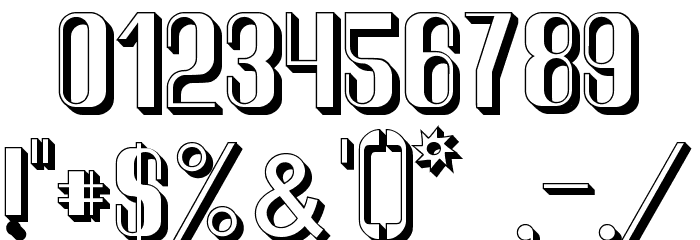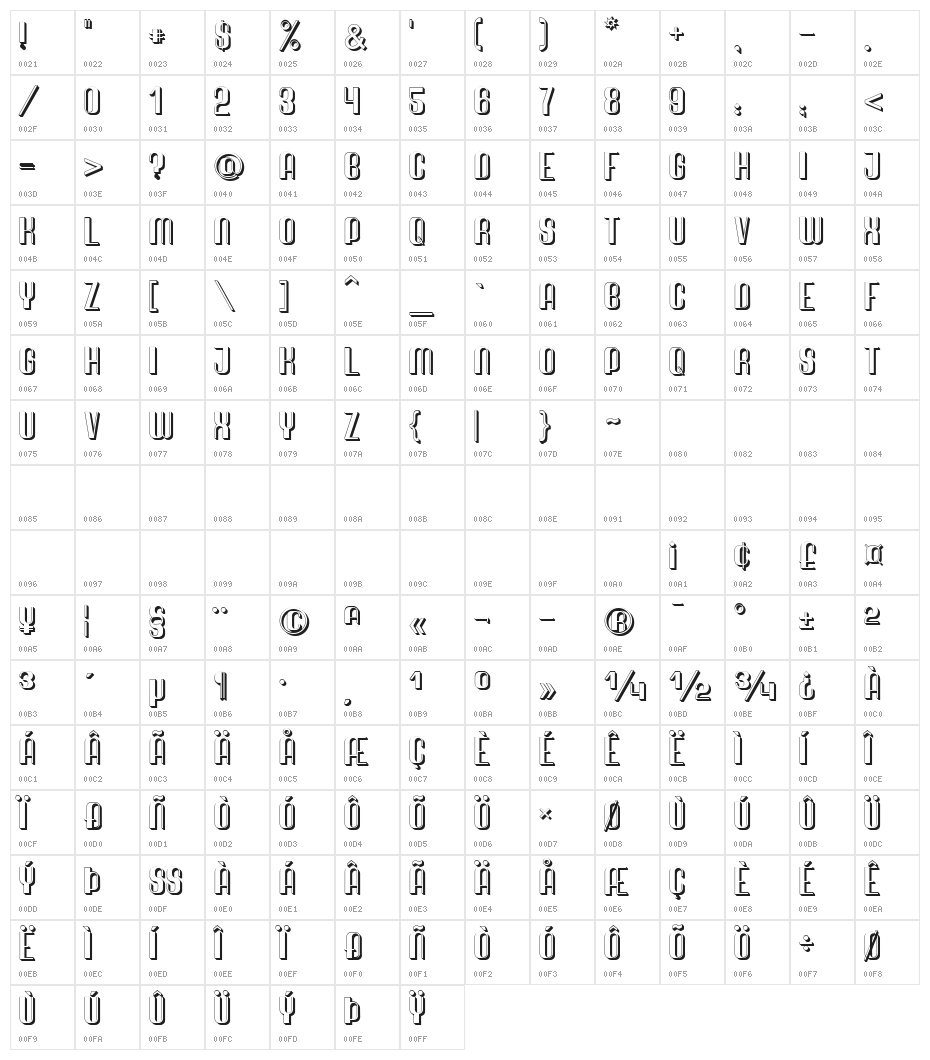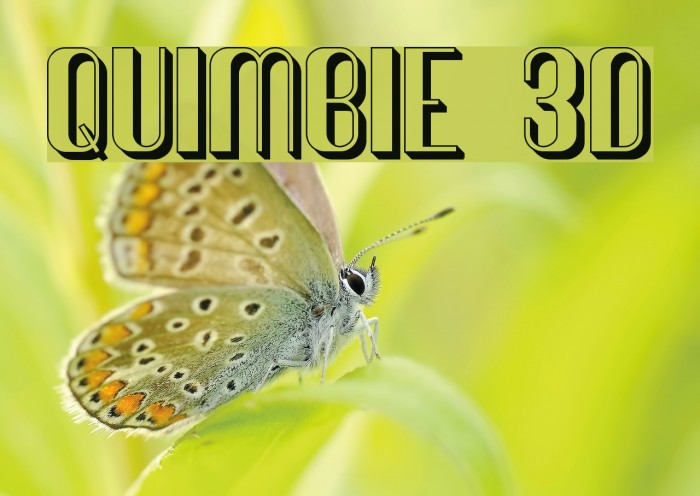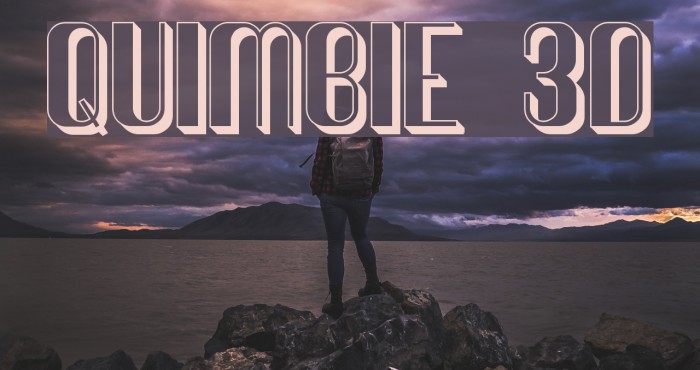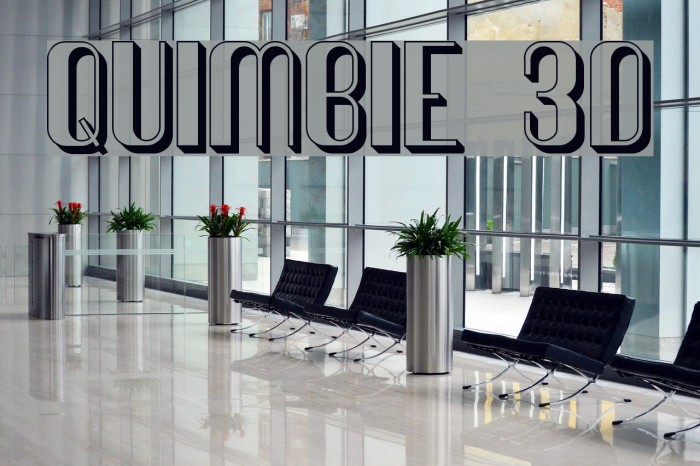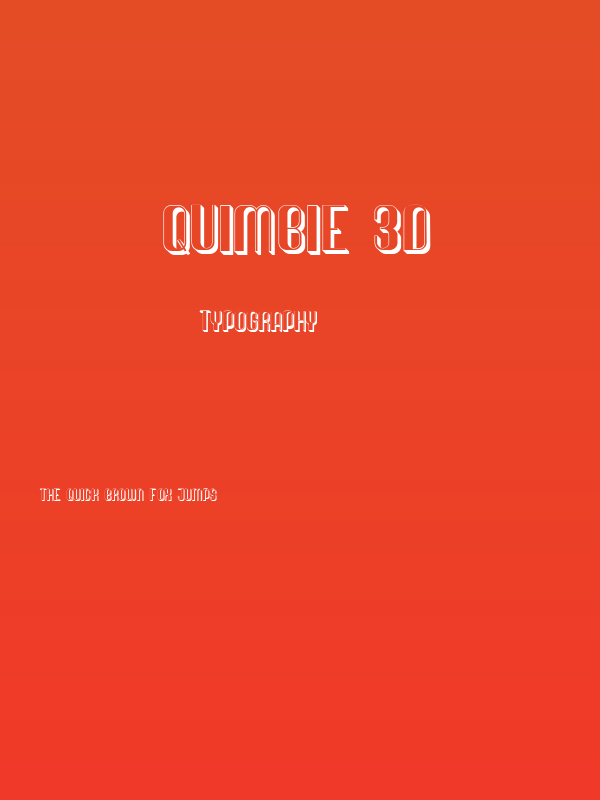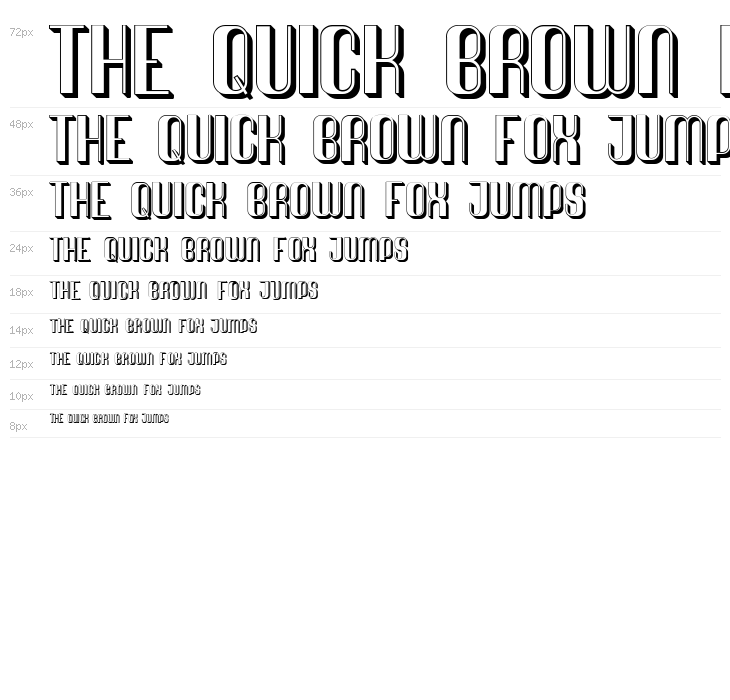
Quimbie 3D Font
Quimbie 3D Description
This font features a bold, three-dimensional design that gives each character a striking, shadowed appearance. The letters are uppercase and have a geometric, block-like structure with clean lines and sharp angles. The 3D effect is achieved through a clever use of shading and perspective, making the characters stand out with a sense of depth. The numbers and special characters follow the same design principles, ensuring consistency across all elements. This font is ideal for projects that require a modern and impactful look, such as posters, headlines, or branding materials.